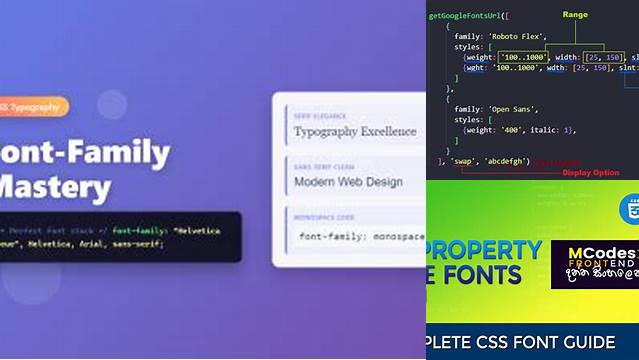
Unlocking Typography: Google Fonts CSS2 Family Guide
Hey everyone! Ever wondered how to jazz up your website's look with some awesome fonts? Well, buckle up, because we're diving deep into fonts.googleapis.com/css2?family, your secret weapon for beautiful typography. This is the key to unlocking a world of fonts that can make your website pop. We'll break down everything you need to know, from how it works to how to make the most of it. Let's get started, shall we?
H2: Understanding the Basics of fonts.googleapis.com/css2?family
Alright, first things first: what exactly is fonts.googleapis.com/css2?family? Think of it as a portal, a magical doorway to the vast collection of Google Fonts. This is where the magic happens; it's the link you use in your website's HTML to tell it which fonts to use. When you type this into your browser, you're essentially requesting a specific CSS file from Google's servers. This file tells your website how to display the fonts you've chosen. The family part is the important bit. This is where you specify the fonts you want, like 'Roboto' or 'Open Sans', and any styles or weights you want to include, like bold or italic. It's like giving the website a shopping list of fonts. The CSS file then provides the instructions your browser needs to render these fonts correctly. The beauty of this system is its simplicity. You don't need to download the fonts and store them on your server; Google handles all of that for you. It's easy to implement, and it ensures that your website loads quickly because Google's servers are optimized for font delivery. Using fonts.googleapis.com/css2?family also means your fonts are updated automatically. Google updates its fonts regularly, so you'll always be using the latest versions without having to lift a finger. It's a win-win! Choosing the right fonts is crucial, as fonts contribute to your website's overall user experience. The right font can make your website look professional, while the wrong font can make it look cluttered or unprofessional. This service is a critical element to creating a visually appealing and engaging website, so understanding how to use fonts.googleapis.com/css2?family is essential.
H2: Choosing the Right Fonts for Your Website
Okay, now that we know how to use fonts.googleapis.com/css2?family, let's talk about what fonts to choose. Choosing the right fonts can be tough. Consider your website's purpose and target audience. A website for a law firm, for example, would use a professional serif font, while a website for a children's toy store might use a playful sans-serif font. Serif fonts have little strokes at the ends of the letters, making them seem more traditional. Sans-serif fonts don't have these strokes and often appear modern and clean. Some of the popular serif fonts include 'Roboto' and 'Open Sans'. Remember to choose fonts that are legible, especially for body text. Legibility is key for a great user experience. Avoid fonts that are too fancy or hard to read, as this will frustrate your visitors. Use headings and subheadings to guide the user's eye and break up the text. Pairing fonts correctly is also important. Generally, it is best to use a serif font for headings and a sans-serif font for body text. This can create a good contrast. You can also experiment with different combinations. You can use a tool like the Google Fonts pairing tool to explore font combinations. Think about the number of fonts you want to use. It's generally a good idea to limit yourself to two or three fonts. Using too many fonts can make your website look cluttered. Using fonts from fonts.googleapis.com/css2?family can make your site more visually appealing. Take your time, experiment, and choose fonts that reflect your brand and appeal to your audience. Your website's typography plays a huge role in how people perceive your brand. It sets the tone and delivers your message. So, choose wisely and make your website a visual treat!
H3: Font Pairing: Finding the Perfect Combination
Alright, let's get into the art of font pairing. Matching the right fonts together is an art. It's like creating a beautiful musical harmony; the wrong notes can ruin the whole song. Start by identifying a primary font for your headings and a secondary font for your body text. Contrast is key. Use a bold font for headings and a lighter, easier-to-read font for body text. This creates a clear hierarchy and guides the reader. Google Fonts is your best friend. It provides a wide array of fonts that you can choose. Google Fonts allows you to explore font pairings. Consider the personalities of the fonts. A classic font like 'Times New Roman' exudes sophistication and tradition, while a sans-serif font such as 'Arial' projects a more modern, clean feel. The Google Fonts website has many of these fonts available. Experiment with different combinations. Try pairing serif fonts with sans-serif fonts or use different weights and styles of the same font. Don't be afraid to break the rules! The best way to learn is to experiment. Try different pairings and test them out. The Google Fonts website provides excellent guidance and suggested font pairings, so use this tool to your advantage. You can find inspiration on other websites that you like. Remember that the font is essential. It will have a significant effect on your website's overall design and user experience. You can create a visually appealing design that is easy to read. Using fonts.googleapis.com/css2?family makes this process easy. It allows you to quickly test different combinations without downloading anything.
H2: Customizing Font Styles and Weights
Let's get into the nitty-gritty: customizing the font styles and weights using fonts.googleapis.com/css2?family. When you specify a font using this method, you're not just limited to the regular style. You can also add bold, italic, and other styles. This flexibility allows you to customize your typography. Bold fonts are excellent for headings, titles, and call-to-action buttons, as they make them stand out. Italics can be used for emphasis, quotes, or to differentiate text. You can also control the weights of the font, such as the thickness of the lines. Weights like 100 (thin) to 900 (extra bold) are available for many fonts. This can change the overall appearance of the text. Using the correct styles and weights will help you build a clear hierarchy in your text. Start by selecting the styles and weights you want from the Google Fonts website when you are selecting the fonts. Add the correct styles and weights to your website's CSS file. Then, in your CSS, use the font-weight property to control the font weights and font-style for italic styles. For example, font-weight: 700 makes a font bold. Using font-style: italic will make a font italic. Remember that not all fonts have every style or weight available. Check the Google Fonts website for each font to see the available options. Experiment with the different styles and weights until you find the perfect look for your website. Customizing font styles and weights can significantly improve your website's design and user experience. Using a wide range of font styles and weights can create a visually engaging design. It is crucial to test your fonts on different devices and browsers to ensure they render correctly. The use of fonts.googleapis.com/css2?family provides great ease for customizing these fonts.
H3: Font Size, Line Height, and Letter Spacing
Once you've chosen your fonts and styles, it's time to get granular. Let's talk about font size, line height, and letter spacing and how they impact your design using fonts.googleapis.com/css2?family. Font size determines how large the text appears. Use font-size in your CSS to control this. Line height, or the space between lines of text, can affect readability. Use line-height in your CSS to adjust this. Letter spacing, also known as tracking, refers to the space between individual letters. You can use letter-spacing in your CSS to customize this. A few more things: Start by defining a default font size for your body text and adjusting it as needed. A good font size for body text is usually between 16px and 18px. Ensure your headings are larger than your body text. Use a line height of approximately 1.5 for good readability. Adjust the letter spacing to improve the appearance of your headings and titles. Increase letter spacing slightly for headings. Make sure the font size, line height, and letter spacing are consistent throughout your website. Don't overuse different font sizes and spacing. The overall appearance of your website can improve the readability and visual appeal of your website. Experiment with these properties to find the perfect balance. Remember that these properties will affect the overall experience for your users. Good typography is essential for a pleasant reading experience. Test your text on different devices and screen sizes to ensure the readability is consistent. Using fonts.googleapis.com/css2?family simplifies the selection of these fonts.
H2: Improving Website Performance with Google Fonts
Performance, performance! It's a must. Website speed is crucial for user experience and SEO. When you use fonts.googleapis.com/css2?family, you're actually optimizing for website performance. Google Fonts is hosted on Google's fast, globally distributed servers. This means your fonts are delivered quickly to users around the world. Instead of hosting the fonts on your server, which could slow down your website, Google handles all the heavy lifting. This means your website will load faster. Google also optimizes font files for quick delivery, minimizing the impact on your website's loading time. However, there are some things you can do to further optimize the performance. Start by selecting only the font styles and weights you actually need. Do not load unnecessary styles. This can significantly reduce the file size and improve loading times. Use the preload attribute in your HTML to tell the browser to start loading the fonts before they're needed. This can help your website load faster. Make sure your CSS is efficient and well-organized. Avoid unnecessary CSS rules. Regularly test your website's performance using tools like Google PageSpeed Insights. This will help you identify areas for improvement. Consider using a content delivery network (CDN) if you're experiencing slow loading times. This can further improve your website's performance by delivering your website content from the server nearest to your users. Using fonts.googleapis.com/css2?family helps you, but you can still optimize things on your end.
H3: Preloading and Font Display for Optimal Loading
Let's dive into the secrets of preload and font-display to make your website load lightning fast, specifically when using fonts.googleapis.com/css2?family. The preload attribute in your HTML tells the browser to load critical resources, like fonts, before they're actually needed. This can help your website load faster because the fonts will be ready when the browser needs to render the text. To use preload, add the following code to the <head> section of your HTML: <link rel="preload" href="your-font-url.woff2" as="font" type="font/woff2" crossorigin>. Replace "your-font-url.woff2" with the URL of your font file. You can find these file URLs on the Google Fonts website. The as="font" attribute tells the browser that this resource is a font. The type="font/woff2" attribute specifies the font file type. WOFF2 is the recommended font format because it offers great compression. The crossorigin attribute is important if your font is hosted on a different domain. It tells the browser that it's okay to load the font from a different origin. Another important property is font-display. This controls how the font is displayed while the font is loading. You can set the font-display property in your CSS. The font-display property is a critical element to ensuring a smooth user experience. Here are the options for font-display: auto, block, swap, fallback, and optional. Using swap means the text is instantly displayed with a fallback font until the custom font is loaded. Then, the custom font will replace it. This is the most common and generally recommended option for website performance. Use the optional value if it's okay if the font doesn't load. font-display: optional; is useful if there are connection issues. Preloading and font-display are important to make sure the website loads quickly, particularly with the use of fonts.googleapis.com/css2?family. Make sure you have these properties implemented on your website.
H2: Accessibility and Typography
Let's talk accessibility. Making sure your website is accessible to everyone is important. Typography plays a big role. It is crucial to consider accessibility when choosing and using fonts through fonts.googleapis.com/css2?family. The size, contrast, and readability of your text are key factors. Choose fonts with good readability. Select fonts that are easy to read, particularly for users with visual impairments. Avoid overly fancy or decorative fonts, as these can be challenging to read. Make sure the font size is large enough. Use a minimum font size of 16 pixels for body text. This makes your website more readable. Use high contrast between text and background colors. Ensure there's enough contrast. Users with visual impairments may struggle to read if there isn't sufficient contrast. Provide sufficient text spacing and line spacing. Make sure there is sufficient spacing between lines of text. This will improve the overall readability. Provide users with the ability to customize fonts. Allow users to adjust the font size, color, and other properties in their web browsers. Structure your content with appropriate headings. Use headings and subheadings. This makes it easier for users to understand the content. Use semantic HTML. Use semantic HTML elements like <h1>, <h2>, <p> and <strong> to provide structure. Test your website with screen readers. Test your website with a screen reader. This will allow you to see how your website functions for users with visual impairments. Using fonts.googleapis.com/css2?family helps, but we must do our part. Making your website accessible ensures everyone can enjoy your website. This is not just good for your users; it's also the right thing to do!
H3: The Impact of AI and Machine Learning on Font Design and Selection
Let's look at the future and the impact of AI and machine learning on fonts, as well as using fonts.googleapis.com/css2?family. AI and Machine Learning will change the field. AI can generate new font designs. Machine learning algorithms can analyze large datasets. AI can help you choose the correct font for your project. AI can analyze your content and make suggestions on font pairings. AI can also help you optimize your website for speed. It can suggest better fonts for your website. This would improve the speed. AI tools will become more sophisticated. These AI tools can create unique fonts. This will improve your website's design. Using AI and Machine Learning will change web design. AI will make it easier to find and use fonts. These new trends are on the horizon. You may consider the impact of AI. Using AI and machine learning is key. This can change the world of typography and design. If you are using fonts.googleapis.com/css2?family, be sure to prepare for the new trends.